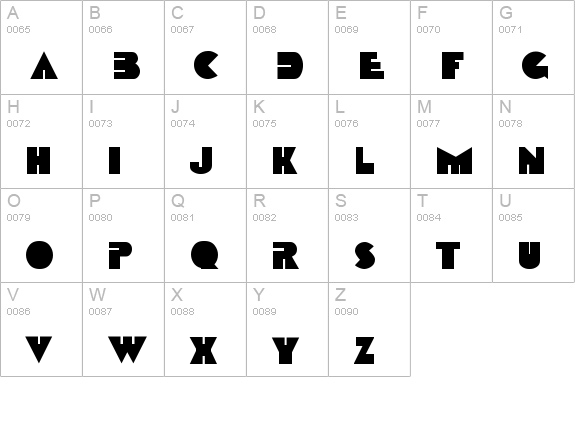
Devandra Font Details
Devandra font is a stunning display typeface that exudes elegance and sophistication. Its unique design features intricate curves and sharp edges that make it perfect for headlines, logos, and other creative projects. The font strikes a perfect balance between modernity and classic charm, making it versatile and eye-catching. What sets Devandra font apart is that it is not only visually appealing but also completely free to download. You can easily access this beautiful typeface at FontsMarket.com, where it is available for free download to use in both personal and commercial projects. Don't miss the opportunity to enhance your designs with this exquisite font that will surely make a lasting impression.